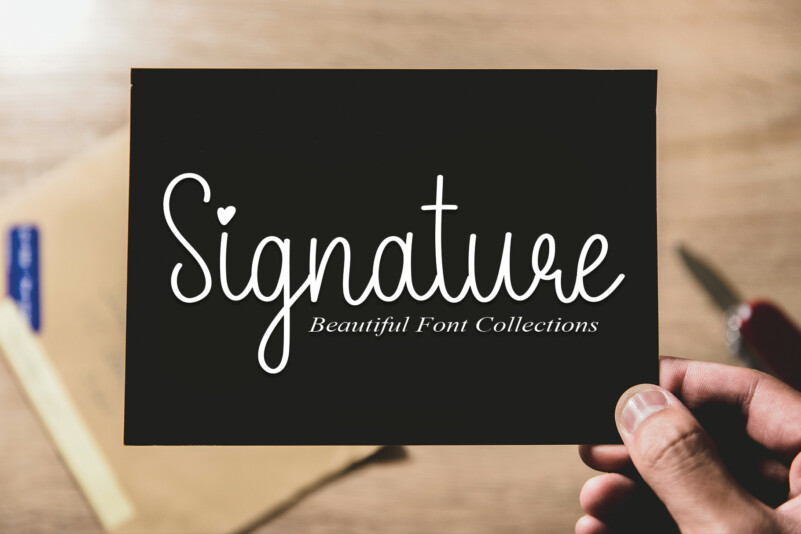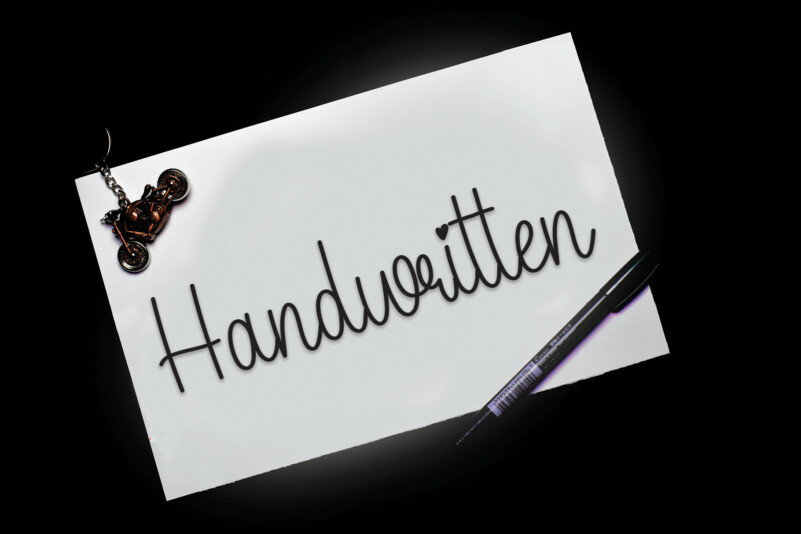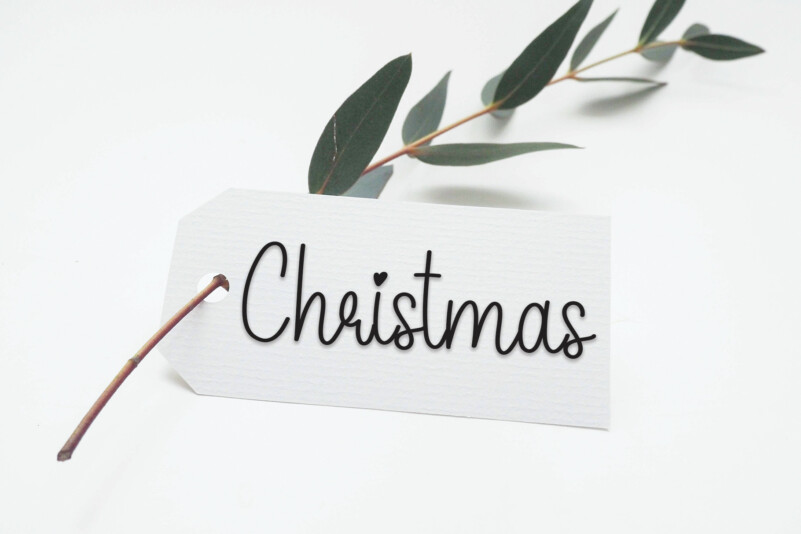
Kiddy Handwritten Font
Kiddy Handwritten Font is a lovely and sweet handwritten script font. It looks stunning on wedding invitations, thank you cards, quotes, greeting cards, logos, business cards and every other design which needs a handwritten touch.